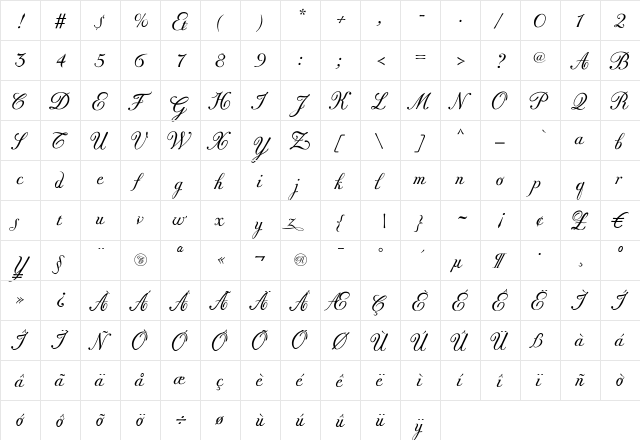
Donna Bodoni Ce Script Regular
Design Context for Donna Bodoni Ce Script Typeface
Donna Bodoni Ce Script brings a calligraphic fluidity to the page — its connecting strokes and expressive curves give it an unmistakably human quality.
Font Pairing: Combine Donna Bodoni Ce Script with a simple geometric sans for maximum contrast — the tension between flowing curves and clean structure is a classic typographic pairing.
Pro Tip: Use Donna Bodoni Ce Script for short runs of text — names, titles, or taglines. Extended body copy in script faces tires the eye quickly.